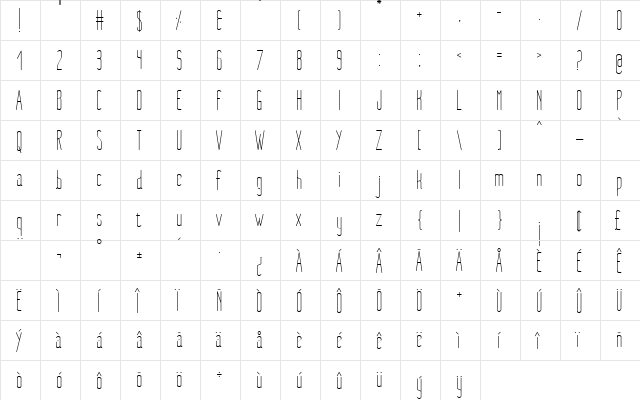
Nue Light Regular
| Foundry | Julia Martinez Diana, Antipixel |
| Designer | Julia Martinez Diana |
Design Context for Nue Light Typeface
Nue Light is a composed and adaptable typeface that performs quietly and consistently across a wide range of design contexts. The delicate stroke weight brings airiness and refinement to layouts.